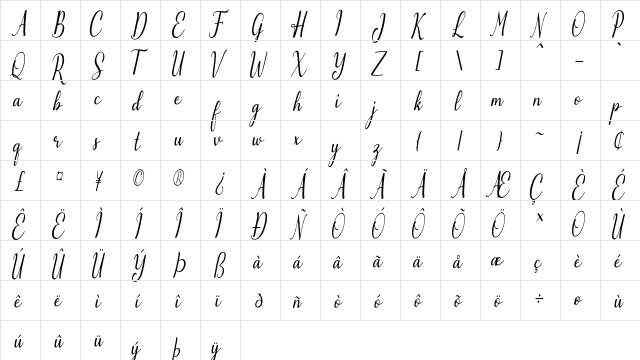
Emilyne Demo Regular
Design Context for Emilyne Demo Typeface
Emilyne Demo is a composed and adaptable typeface that performs quietly and consistently across a wide range of design contexts.